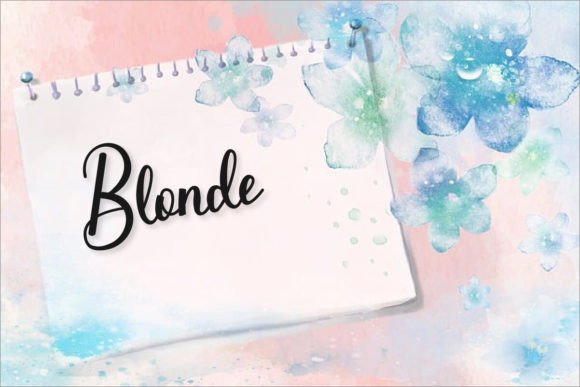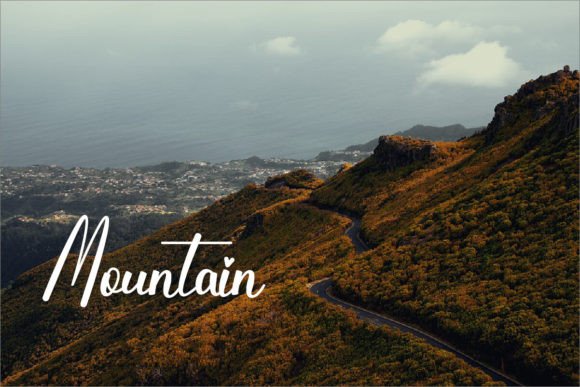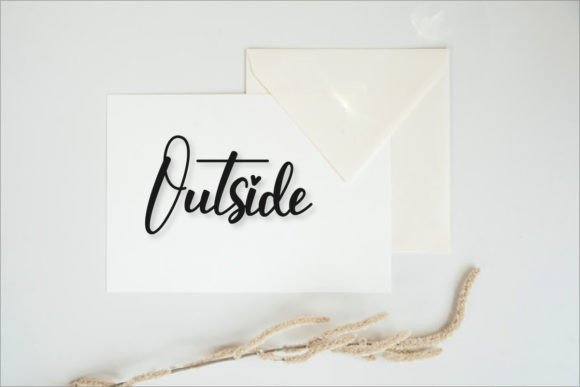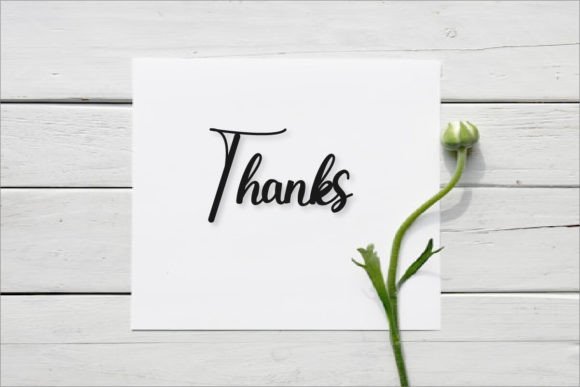
Introducing Birthday Font: Elevate Your Designs with Elegance and Sophistication
Are you tired of using the same old fonts for your designs? Do you want to add a touch of elegance and sophistication to your projects? Look no further than Birthday Font, a beautiful and flowing handwritten font that is sure to take your designs to the next level. In this article, we’ll explore the features and benefits of Birthday Font, and show you how to make the most of this stunning typeface.
What is Birthday Font?
Birthday Font is a elegant and flowing handwritten font that is perfect for a variety of design projects. It has a classy calligraphic influence, while still feeling contemporary and fresh. The font features varied baselines, smooth lines, beautiful glyphs, and stunning alternates, making it perfect for creating beautiful and eye-catching text.
- Varied Baselines: Birthday Font features varied baselines, which give it a natural and organic feel. This makes it perfect for creating text that feels like it was written by hand.
- Smooth Lines: The font features smooth lines that are easy on the eye. This makes it perfect for creating text that is easy to read and understand.
- Beautiful Glyphs: Birthday Font features a range of beautiful glyphs, including letters, numbers, and punctuation marks. These glyphs are designed to work together to create a cohesive and elegant look.
- Stunning Alternates: The font also features stunning alternates, which allow you to create unique and interesting text. These alternates can be used to add emphasis or create visual interest.
Benefits of Using Birthday Font
There are many benefits to using Birthday Font in your designs. Here are just a few:
- Elegance and Sophistication: Birthday Font adds a touch of elegance and sophistication to any design. It’s perfect for creating high-end designs that are sure to impress.
- Versatility: The font is versatile and can be used for a variety of design projects, from wedding invitations to business cards.
- Easy to Read: Despite its elegant feel, Birthday Font is easy to read and understand. This makes it perfect for creating text that needs to be read and understood.
How to Use Birthday Font
Using Birthday Font is easy. Here are a few tips to get you started:
- Use it for Headings: Birthday Font is perfect for creating headings and titles. Use it to add a touch of elegance and sophistication to your designs.
- Experiment with Alternates: The font features stunning alternates that can be used to add emphasis or create visual interest. Experiment with different alternates to find the one that works best for your design.
- Pair it with Other Fonts: Birthday Font can be paired with other fonts to create a unique and interesting look. Try pairing it with a sans-serif font for a modern and elegant look.
Who is Birthday Font for?
Birthday Font is perfect for designers and crafters who want to add a touch of elegance and sophistication to their designs. It’s ideal for:
- Graphic Designers: Birthday Font is perfect for graphic designers who want to create high-end designs that are sure to impress.
- Crafters: The font is also perfect for crafters who want to create beautiful and unique projects, such as wedding invitations and party decorations.
- Small Business Owners: Small business owners can use Birthday Font to create professional and elegant designs that are sure to impress their customers.
In conclusion, Birthday Font is a beautiful and elegant handwritten font that is perfect for designers and crafters who want to add a touch of sophistication and elegance to their designs. With its varied baselines, smooth lines, beautiful glyphs, and stunning alternates, it’s sure to take your designs to the next level. Whether you’re a graphic designer, crafter, or small business owner, Birthday Font is a great choice for any design project.